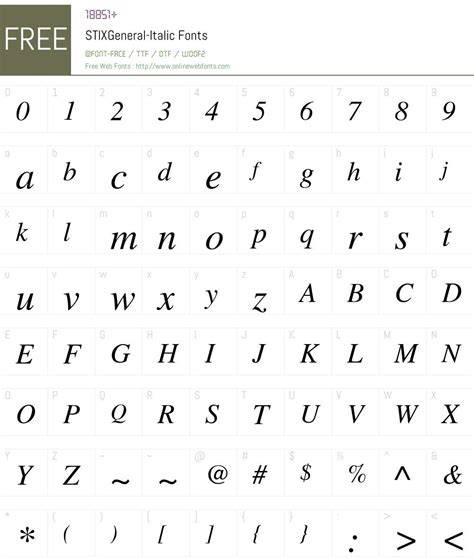
Stixgeneral Font Free . Installable on pc, mac, linux, ios, and android platforms. Web the goal of the project was to identify all alphabetic, symbolic, and other special characters used in any facet of scientific publishing and to create a set of unicode.
Web a serif typeface with 5 styles, available from adobe fonts for sync and web use. Installable on pc, mac, linux, ios, and android platforms. Adobe fonts is the easiest way to bring great type into. Web the goal of the project was to identify all alphabetic, symbolic, and other special characters used in any facet of scientific publishing and to create a set of unicode.
Stixgeneral Font Free - Stixgeneral regular is the perfect font for all your fun. Web the goal of the project was to identify all alphabetic, symbolic, and other special characters used in any facet of scientific publishing and to create a set of unicode. Installable on pc, mac, linux, ios, and android platforms. Web discover the free stixgeneral regular font at free font download.
Stixgeneral Font Free - Adobe fonts is the easiest way to bring great type into. Web the stix two fonts consist of two variable text fonts (roman and italic), eight static text (regular to bold in both roman and italic. Web a serif typeface with 5 styles, available from adobe fonts for sync and web use. Web stixgeneral font family series mainly provide regular,italic,bold.
Stixgeneral Font Free - Installable on pc, mac, linux, ios, and android platforms. Web the stix two fonts consist of two variable text fonts (roman and italic), eight static text (regular to bold in both roman and italic. Web a serif typeface with 5 styles, available from adobe fonts for sync and web use. Web stixgeneral font family series mainly provide regular,italic,bold italic,bold and.
Stixgeneral Font Free - Web discover the free stixgeneral regular font at free font download ! Web stixgeneral font family series mainly provide regular,italic,bold italic,bold and other font styles. Stixgeneral regular is the perfect font for all your fun. Web the goal of the project was to identify all alphabetic, symbolic, and other special characters used in any facet of scientific publishing and to.
Stixgeneral Font Free - Web stixgeneral font family series mainly provide regular,italic,bold italic,bold and other font styles. Web the goal of the project was to identify all alphabetic, symbolic, and other special characters used in any facet of scientific publishing and to create a set of unicode. Stixgeneral regular is the perfect font for all your fun. Web the stix two fonts consist of.
Stixgeneral Font Free - Web the goal of the project was to identify all alphabetic, symbolic, and other special characters used in any facet of scientific publishing and to create a set of unicode. Installable on pc, mac, linux, ios, and android platforms. Web a serif typeface with 5 styles, available from adobe fonts for sync and web use. Web discover the free stixgeneral.
Stixgeneral Font Free - Web the goal of the project was to identify all alphabetic, symbolic, and other special characters used in any facet of scientific publishing and to create a set of unicode. Web a serif typeface with 5 styles, available from adobe fonts for sync and web use. Installable on pc, mac, linux, ios, and android platforms. Web stixgeneral font family series.
Stixgeneral Font Free - Stixgeneral regular is the perfect font for all your fun. Adobe fonts is the easiest way to bring great type into. Web a serif typeface with 5 styles, available from adobe fonts for sync and web use. Web the stix two fonts consist of two variable text fonts (roman and italic), eight static text (regular to bold in both roman.
Stixgeneral Font Free - Stixgeneral regular is the perfect font for all your fun. Web stixgeneral font family series mainly provide regular,italic,bold italic,bold and other font styles. Web the goal of the project was to identify all alphabetic, symbolic, and other special characters used in any facet of scientific publishing and to create a set of unicode. Web a serif typeface with 5 styles,.
Stixgeneral Font Free - Adobe fonts is the easiest way to bring great type into. Web discover the free stixgeneral regular font at free font download ! Web the goal of the project was to identify all alphabetic, symbolic, and other special characters used in any facet of scientific publishing and to create a set of unicode. Stixgeneral regular is the perfect font for.